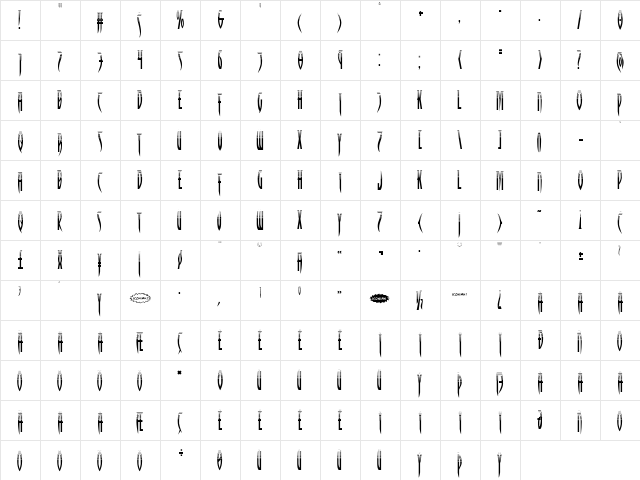
Inhumanity Halftone Regular
Design Context for Inhumanity Halftone Typeface
Inhumanity Halftone is a composed and adaptable typeface that performs quietly and consistently across a wide range of design contexts.